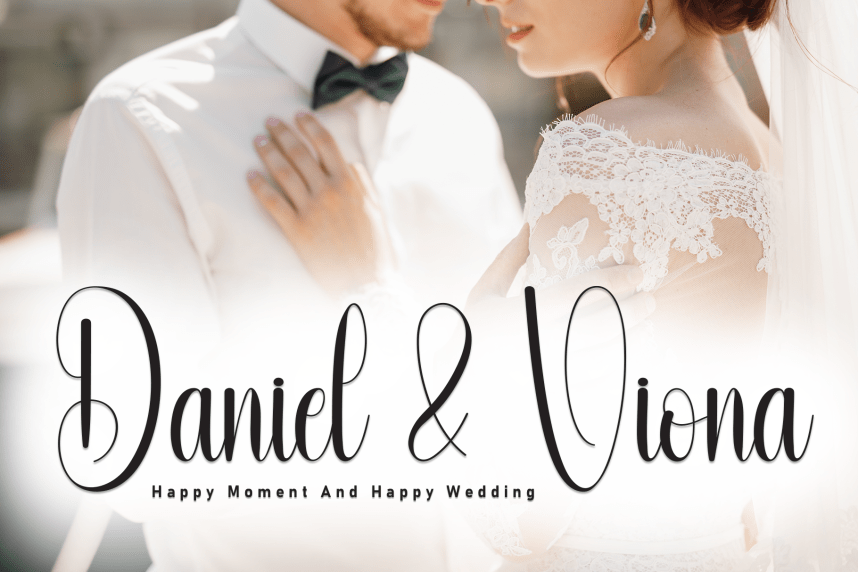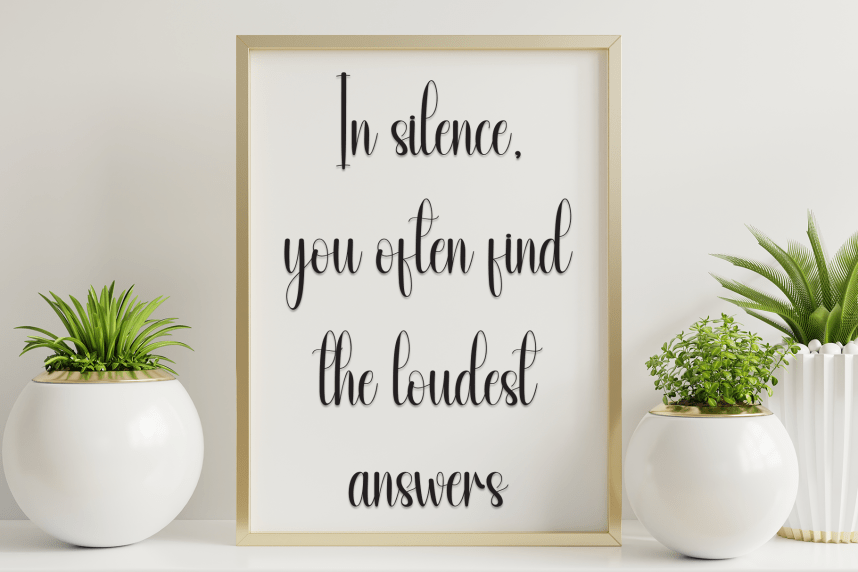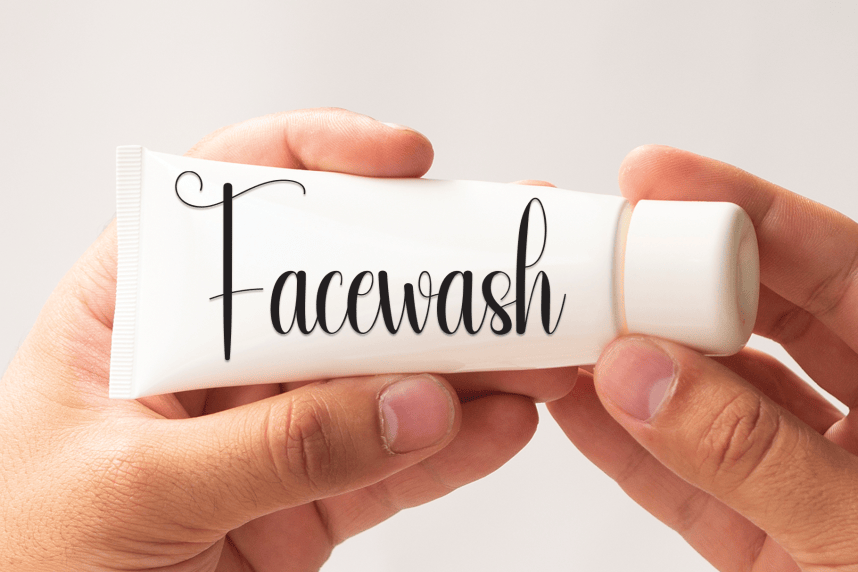
Baby Signature – Modern Script Handwritten Font
Baby Signature – Modern Script Handwritten Font is a sweet and friendly handwritten display font. Cute and fun, this font is ideal for writing wedding invitations, cards, or any other design that might need a playful touch!